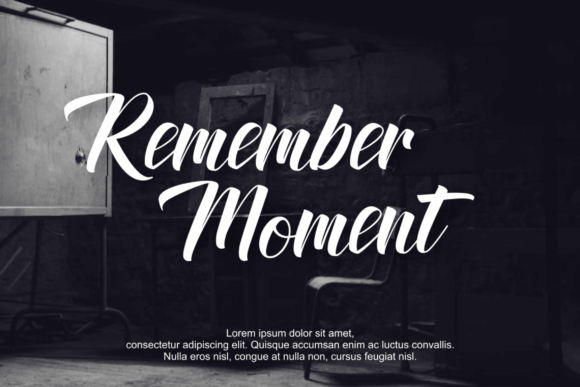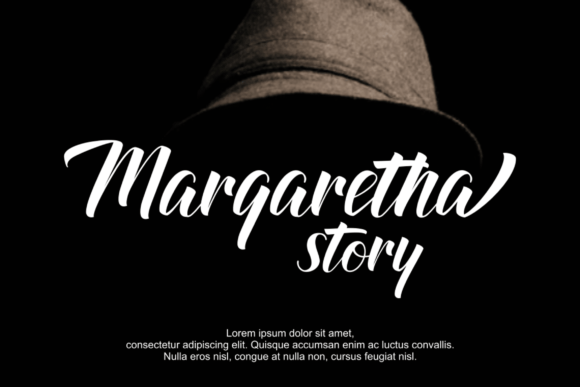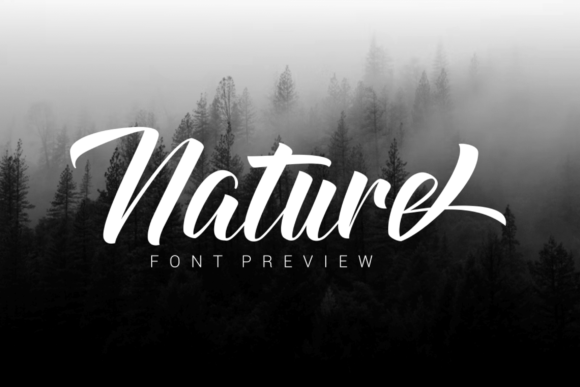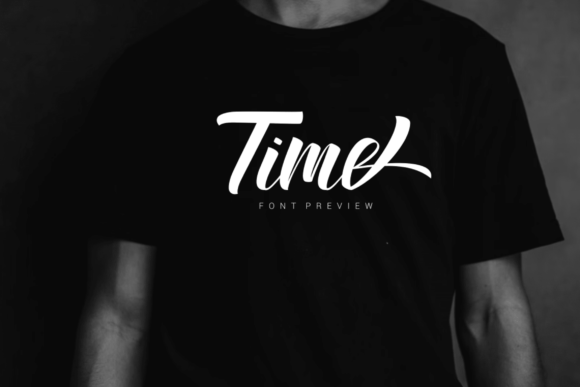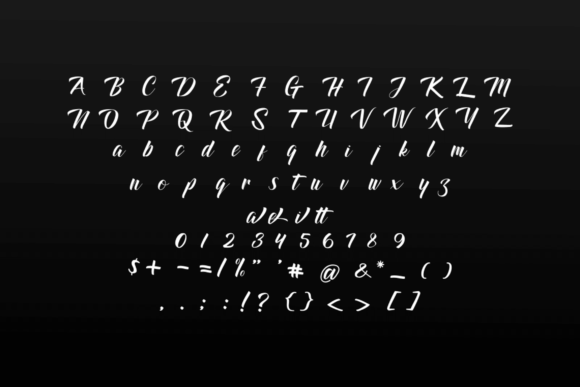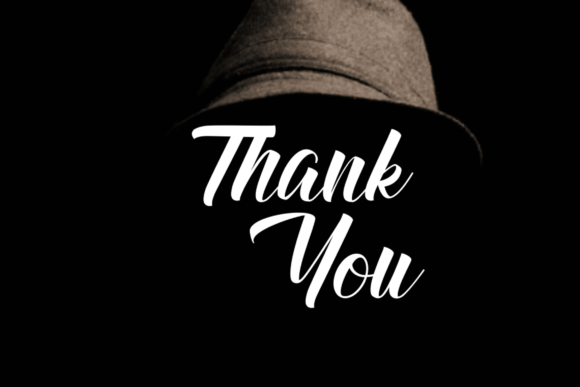
Introduction to Rabitmiqe Font
You’re in the middle of a creative project, and you need a font that exudes authenticity and boldness. Maybe you’re working on a logo design for a new client, or perhaps you’re creating a t-shirt design that needs to stand out. Whatever the project, you’re on the hunt for a font that can elevate your design to the next level. That’s where the Rabitmiqe Font comes in – a free download that’s sure to become your new go-to design resource.
As a designer, you know that the right font can make all the difference in a project. And with the Rabitmiqe Font, you’ll get a high-quality, handwritten font that’s perfect for any branding project. From export to print, this font will look outstanding in a wide range of contexts – including those with a transparent background, where its unique character can really shine.
Key Features of Rabitmiqe Font
- High-quality, professional font perfect for creative projects and design resources
- Transparent background option for seamless integration into various design elements
- Includes a wide range of characters and glyphs, including international characters and symbols
- Designed with a high resolution of 300 DPI for crisp and clear text display
- Unique, modern design aesthetic that sets it apart from other fonts in its class
Honest Review: Rabitmiqe Font
I recently stumbled upon the Rabitmiqe Font and I must say it’s a great addition to any designer’s toolkit. This free download has been a game-changer for my creative projects, offering a unique and stylish look that’s perfect for modern designs.
- ✨ High quality typography that’s crisp and clean, making it ideal for titles and headings.
- ✨ A transparent background that makes it easy to layer and customize.
- ✨ Versatile design that’s suitable for a wide range of creative projects, from logos to digital products.
However, I did encounter a few limitations with this font.
- ⚠️ Limited character set, which may not be ideal for longer text blocks.
- ⚠️ Not as customizable as some other design resources, which can be a drawback for designers who like to experiment with different styles.
Overall, I’m really impressed with the Rabitmiqe Font and would definitely recommend it to designers looking for a high-quality, free design resource. Its unique style and versatility make it a great addition to any creative project.
Tips for Getting the Most Out of Rabitmiqe Font
For the best results, use the Rabitmiqe Font in conjunction with a transparent background to create a unique and eye-catching design. Experiment with different font sizes and styles to add depth and interest to your creative project.
Common Use Cases for Rabitmiqe Font
The Rabitmiqe Font is ideal for use in a variety of creative projects, including logos, graphics, and digital art. Its high-quality design and transparent background make it a versatile design resource for designers and artists of all levels.
Comparison to Rabitmiqe Font: While Alex Brush Font has a more elegant and refined feel, Rabitmiqe Font has a more playful and whimsical touch.